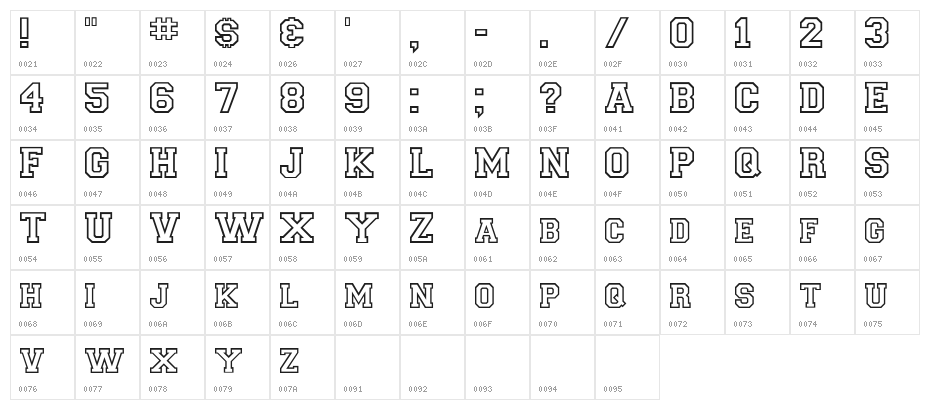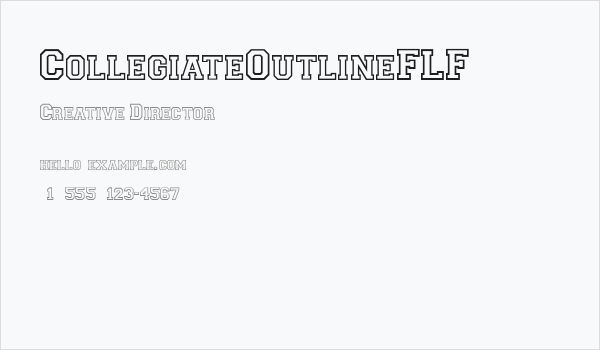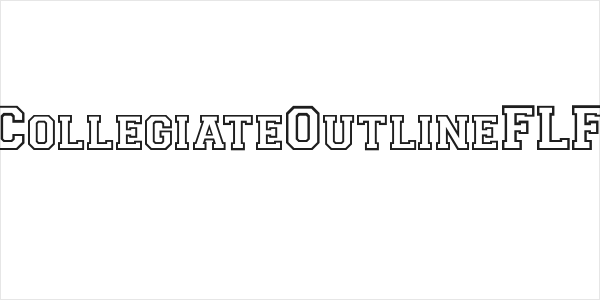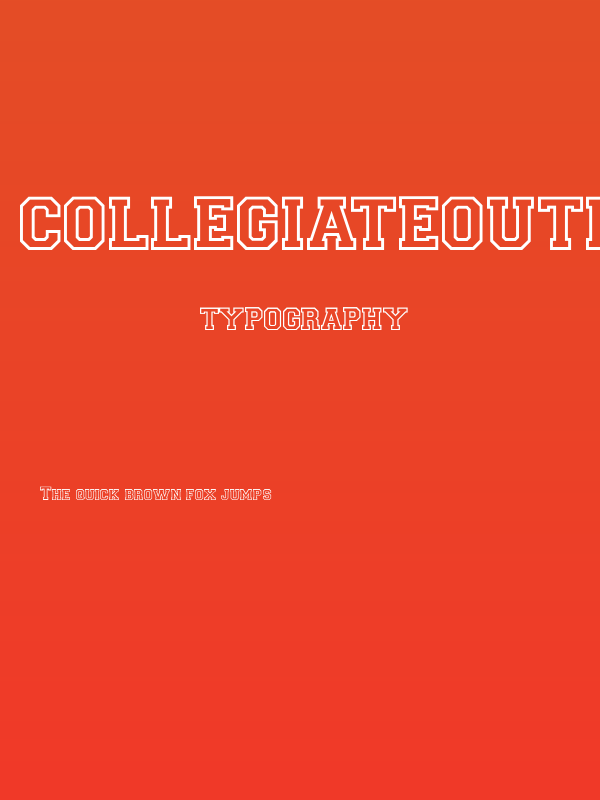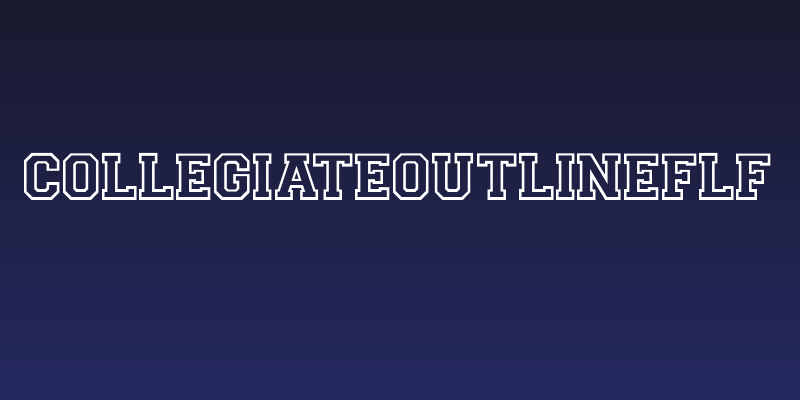
CollegiateOutlineFLF Font
CollegiateOutlineFLF Description
This font features a bold, outlined style reminiscent of traditional collegiate or varsity lettering. Each character is defined by a thick, uniform outline that gives it a strong, impactful presence. The uppercase letters are blocky and geometric, with sharp angles and clean lines, creating a sense of strength and authority. The numbers and special characters follow the same design principles, ensuring consistency across all glyphs. This font is ideal for projects that require a bold, eye-catching typeface with a classic, academic feel.
Overall StyleClassic
Use CaseLogos, Headlines, Posters
Proposed ProjectsIdeal for sports team logos, university branding, event posters, and apparel design.